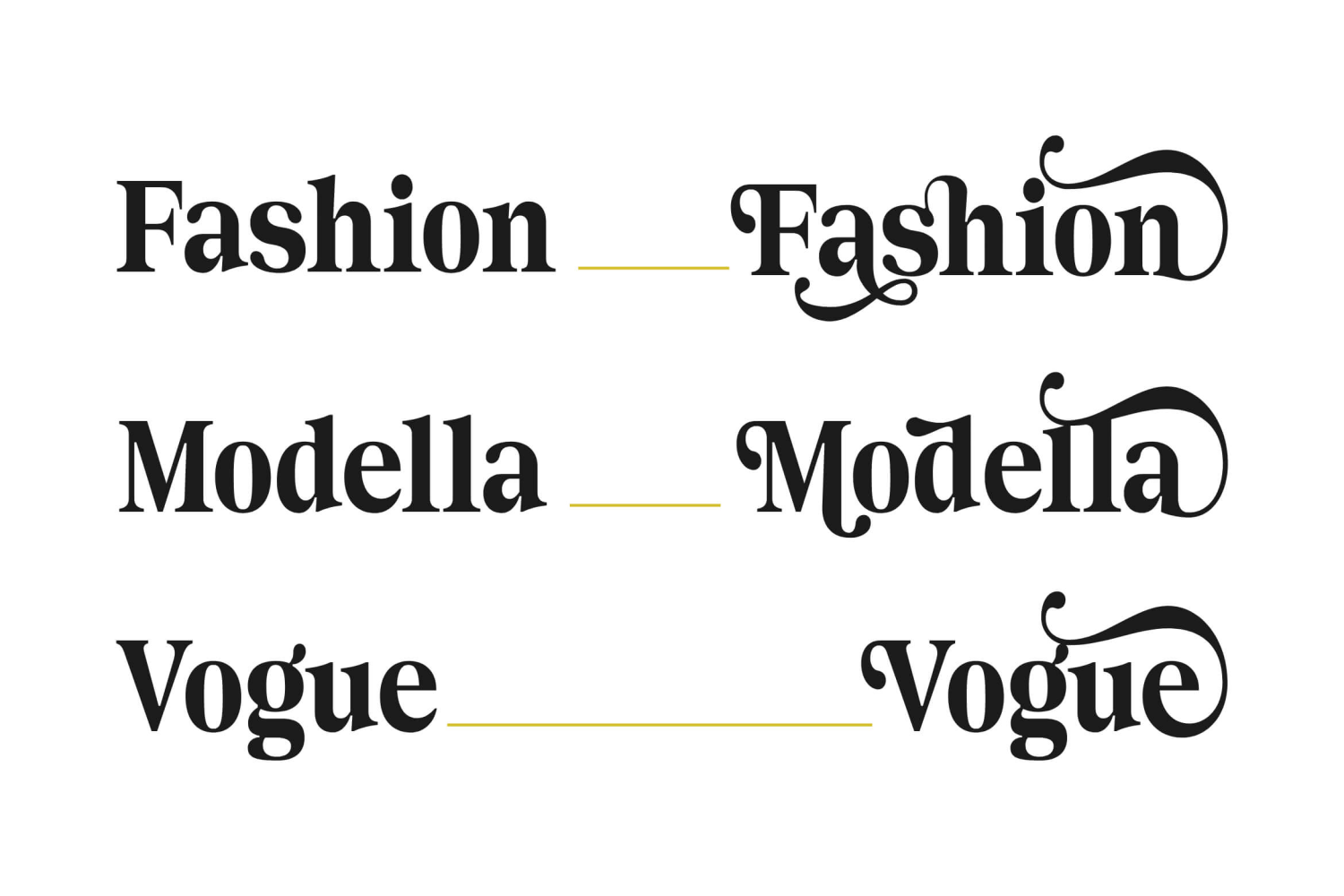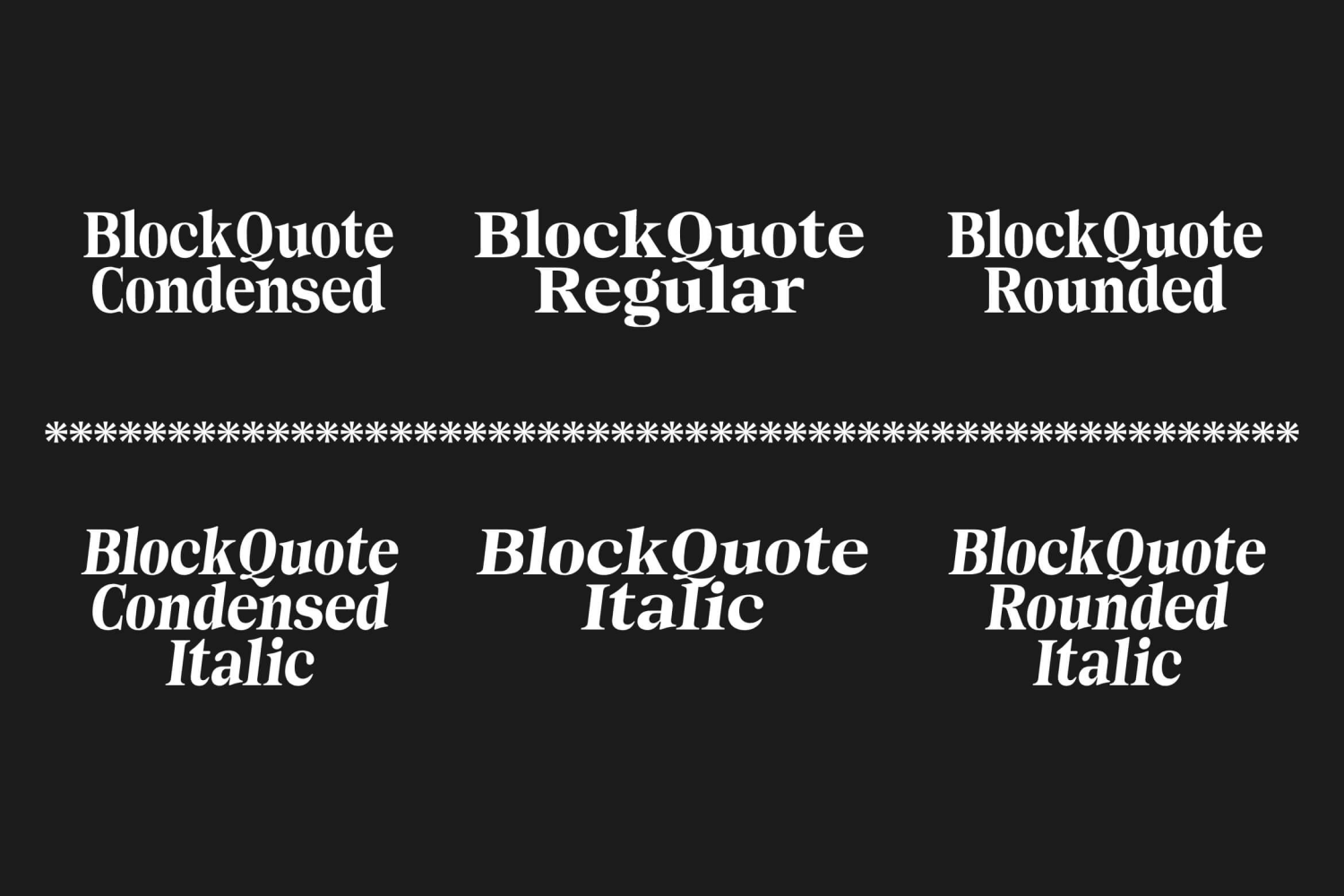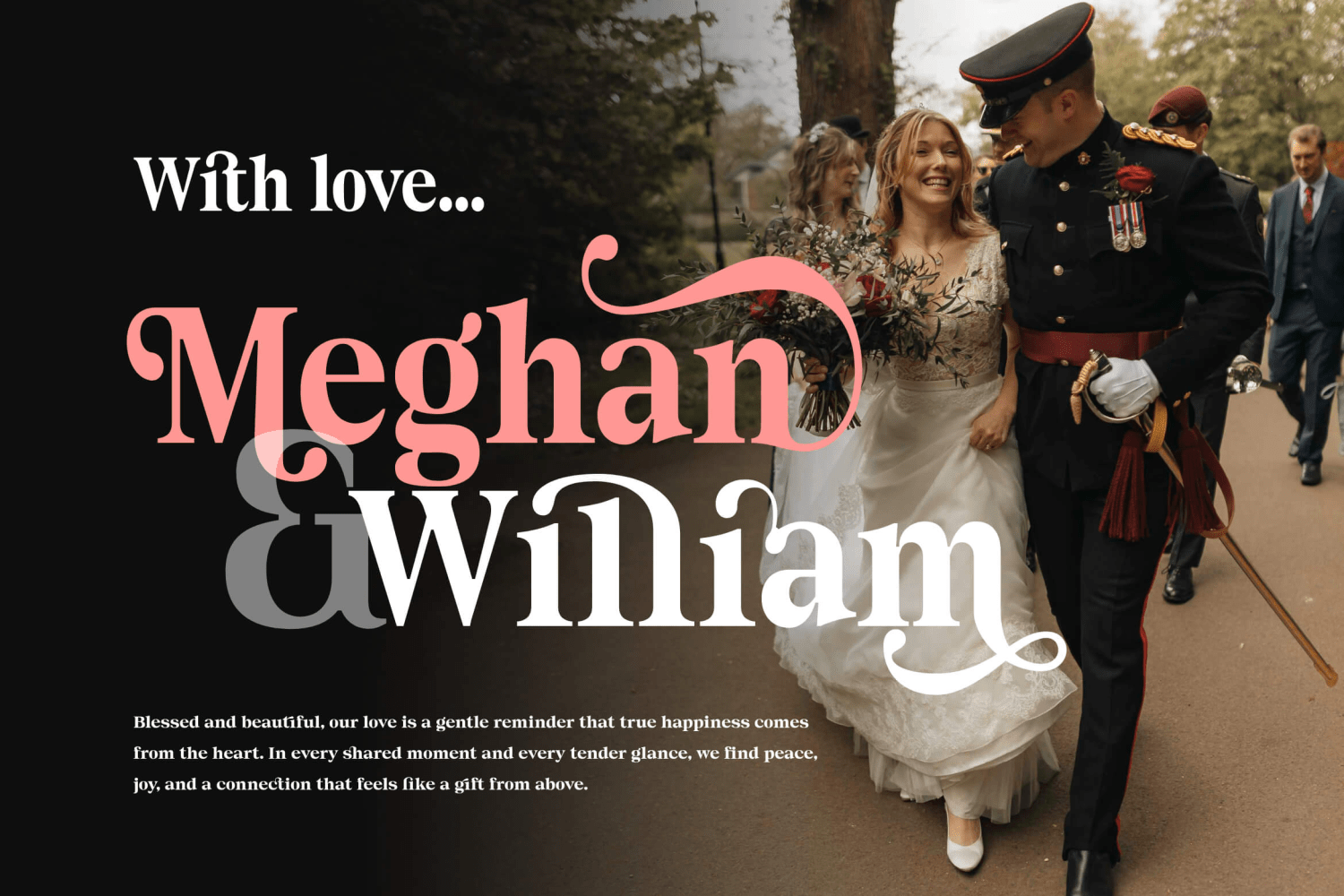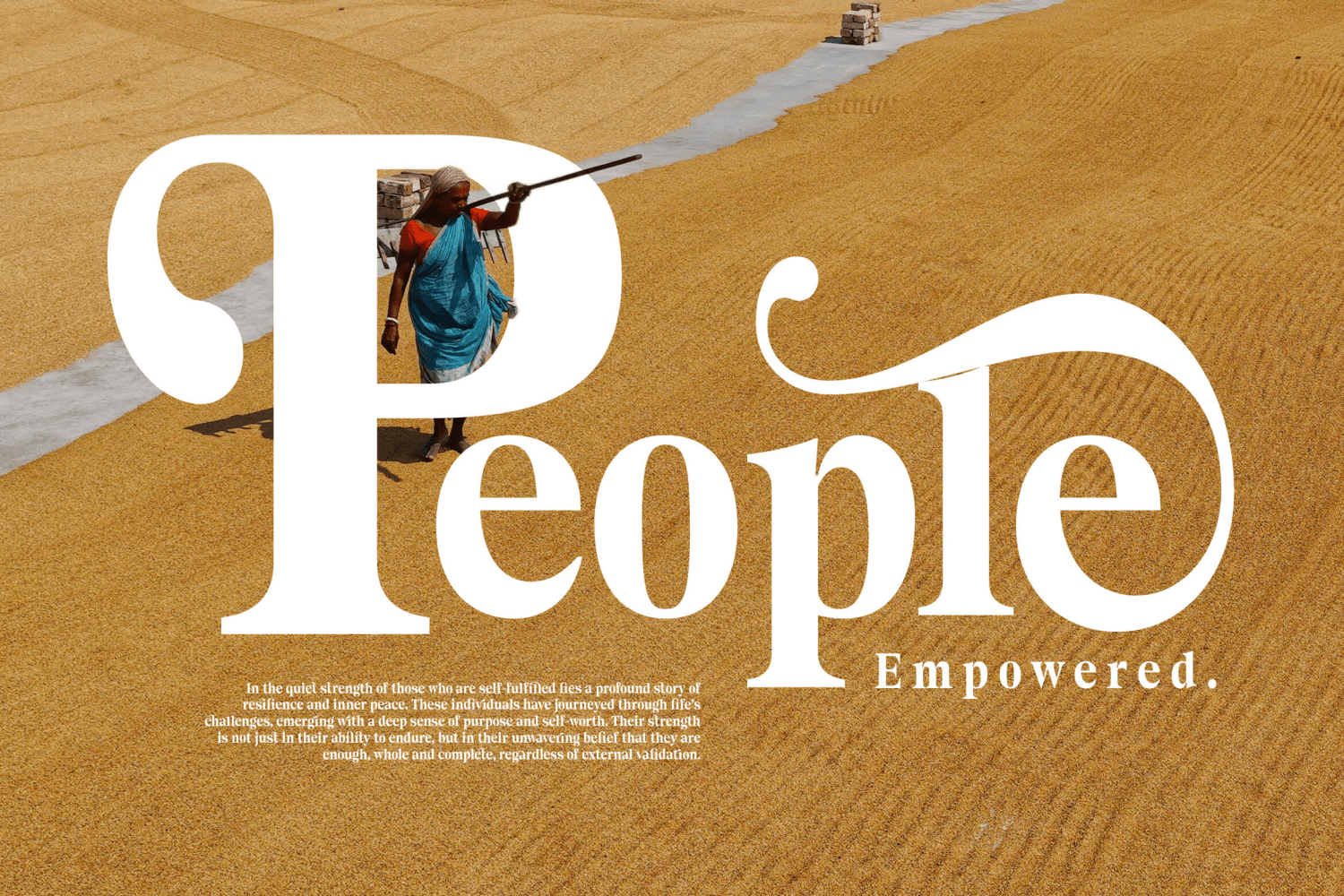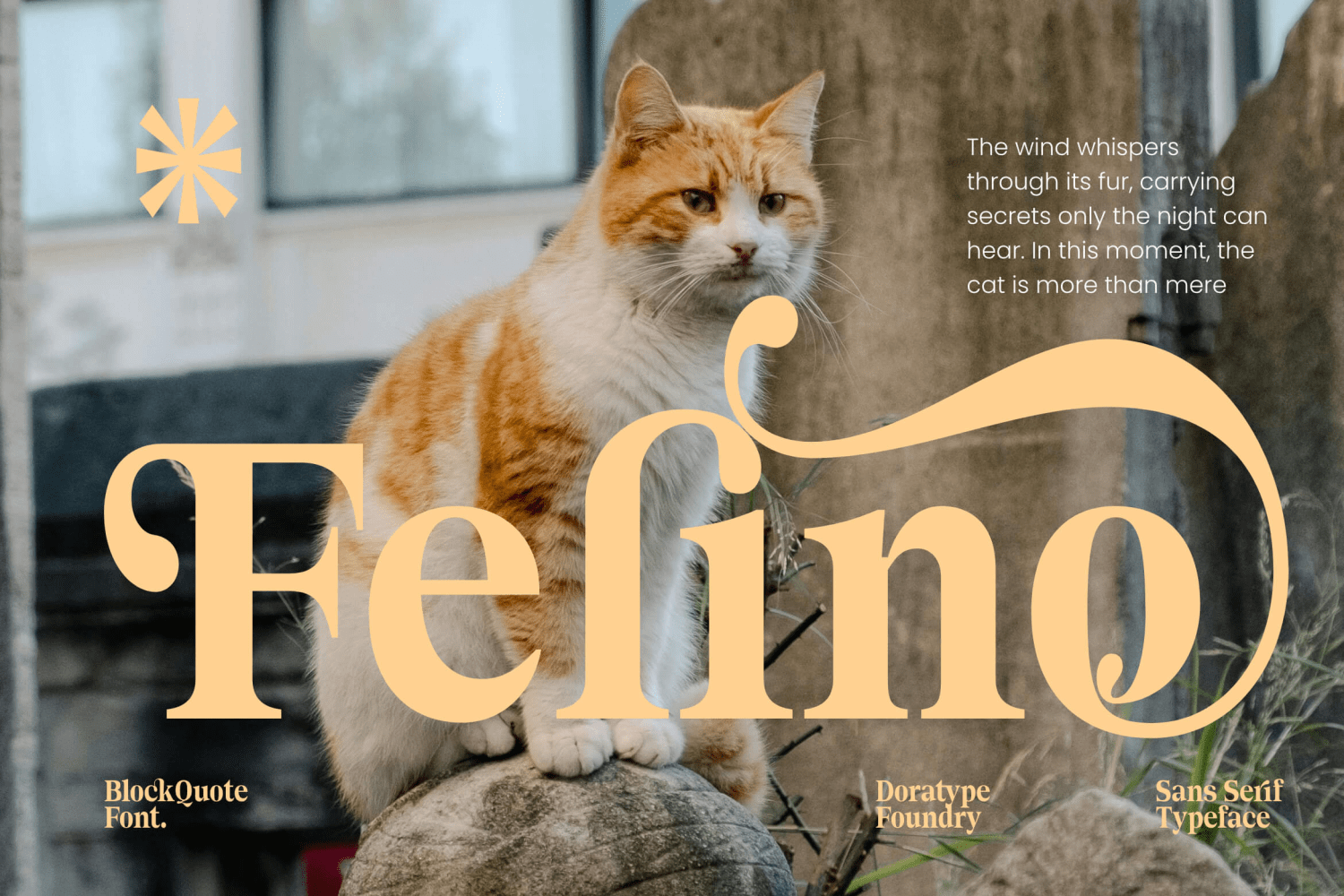
About Block Quote
Block Quote is a stunningly sleek and exotic beautifully crafted serif typeface that combines classic elegance with a contemporary design sensibility making it an ideal choice for creating elegant modern designs. Block Quotes come in Three styles: Regular,…